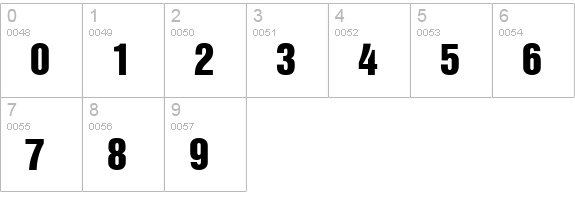
Sans Inserat Font Details
Sans Inserat is a stunning and versatile font that effortlessly combines modernity with classic elegance. Its clean and crisp lines, along with its unique character shapes, make it the perfect choice for a wide range of design projects, from advertising and branding to editorial and web design. This font's sleek and minimalistic design ensures readability across various mediums and sizes, making it ideal for both print and digital applications. Whether you're designing a sleek and contemporary logo or crafting a professional-looking brochure, Sans Inserat will add a touch of sophistication to your work. One of the most appealing aspects of Sans Inserat is its versatility. It seamlessly adapts to different design styles, effortlessly complementing both bold and delicate aesthetics. Its refined letterforms and carefully crafted proportions make it a timeless choice that will stand the test of time. And the best part? Sans Inserat is available for free download at FontsMarket.com. This means that you can access this stunning font without any cost, allowing you to elevate your design projects without breaking the bank. FontsMarket.com offers a vast collection of high-quality fonts, and Sans Inserat is just one of the many gems you can find on their platform. So, whether you're a professional designer or a passionate hobbyist, don't miss the opportunity to enhance your creations with Sans Inserat. Download it for free at FontsMarket.com and let your creativity soar.